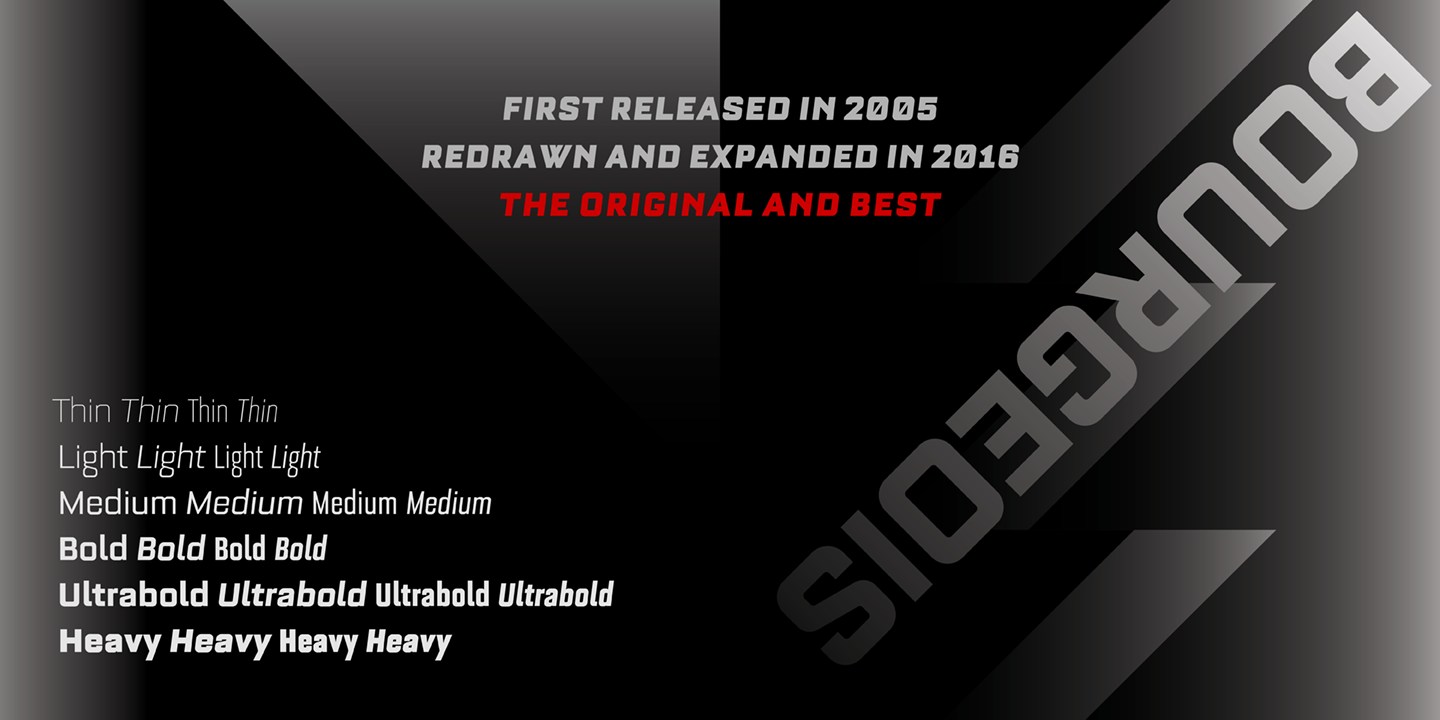
Bourgeois Font excels in luxury design applications including high-end fashion branding, exclusive boutique signage, premium lifestyle magazines, upscale real estate materials, fine dining restaurant identities, luxury hotel communications, prestigious wine labels, elegant jewelry packaging, sophisticated corporate branding, and affluent lifestyle campaigns. This refined typeface brings aristocratic sophistication to elite market projects.
What makes Bourgeois Font truly exciting is its masterful balance of classical elegance with modern luxury aesthetics that appeals to discerning, affluent audiences. The font features meticulously crafted letterforms with subtle sophistication and refined proportions that convey exclusivity and premium quality. Its distinguished character and upscale appeal make it ideal for brands targeting wealthy demographics who appreciate fine craftsmanship, cultural refinement, and the sophisticated lifestyle associated with established social status.
The Bourgeois Font family typically includes multiple weights such as Light, Regular, Medium, Bold, and potentially Italic variations that maintain its luxurious character. These elegant options provide designers with complete upscale styling while preserving the font's distinctive aristocratic elegance and premium presentation across various luxury applications and high-end contexts.
Whether you're developing luxury branding, creating premium publications, or designing affluent-focused campaigns, Bourgeois Font Free Download delivers the sophisticated authority and upscale refinement that elite projects require. Its exceptional elegance and luxury appeal make it invaluable for designers working with high-end brands, luxury services, and premium companies requiring typography that reflects wealth, sophistication, and the refined tastes of discerning clientele who demand excellence and appreciate the finest quality in every detail.